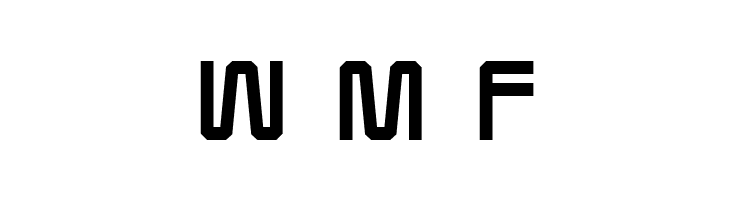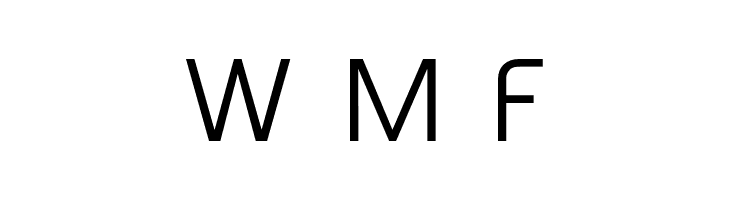
A modern, geometric sans-serif font with a clean and balanced design.
A decorative font styled after vintage license plates, featuring bold, eclectic characters.
A rugged, distressed font with a hand-drawn, vintage appearance.
A bold, geometric font with an industrial and modern aesthetic.
A bold, geometric font with a futuristic and technical style.